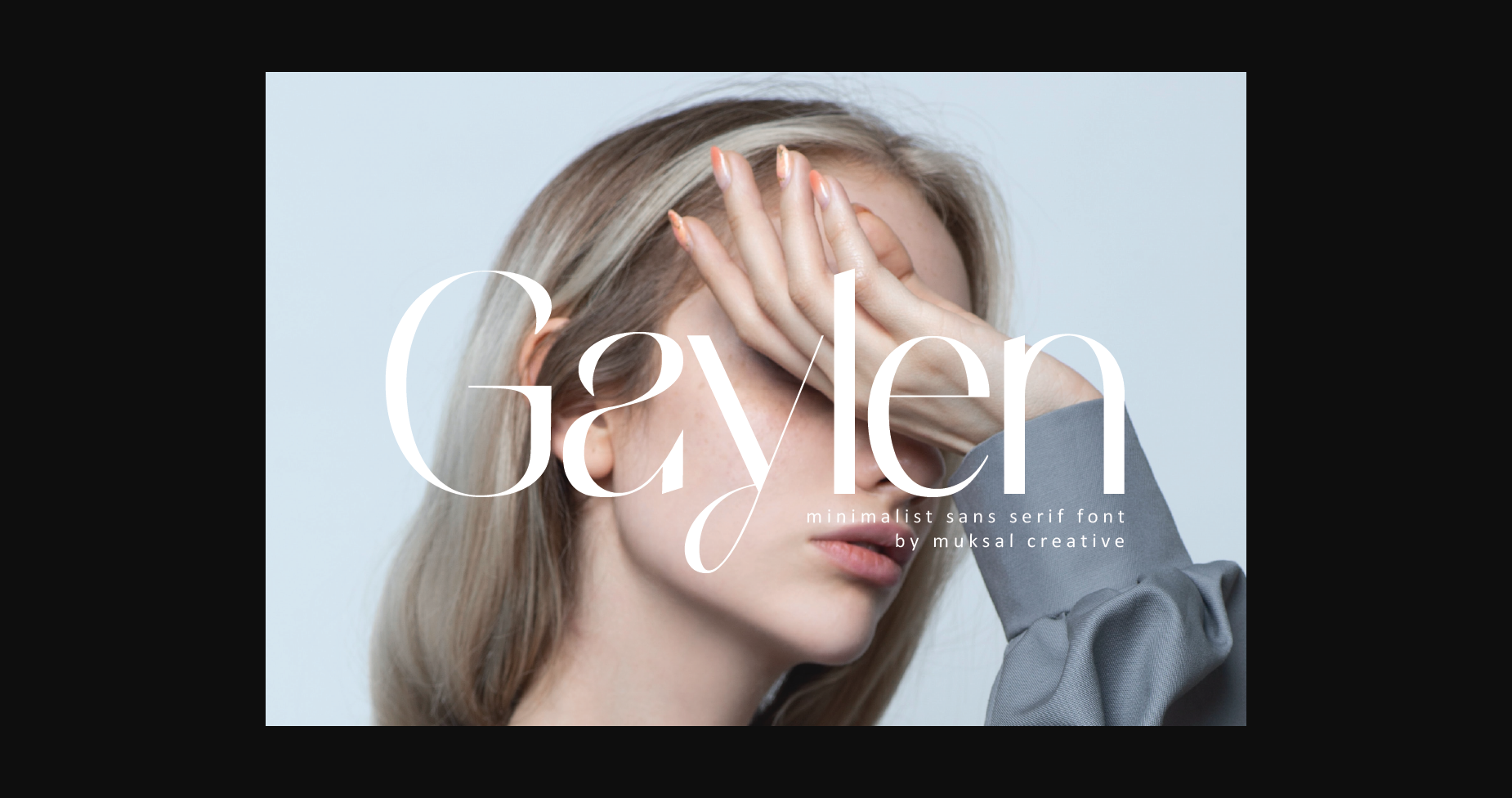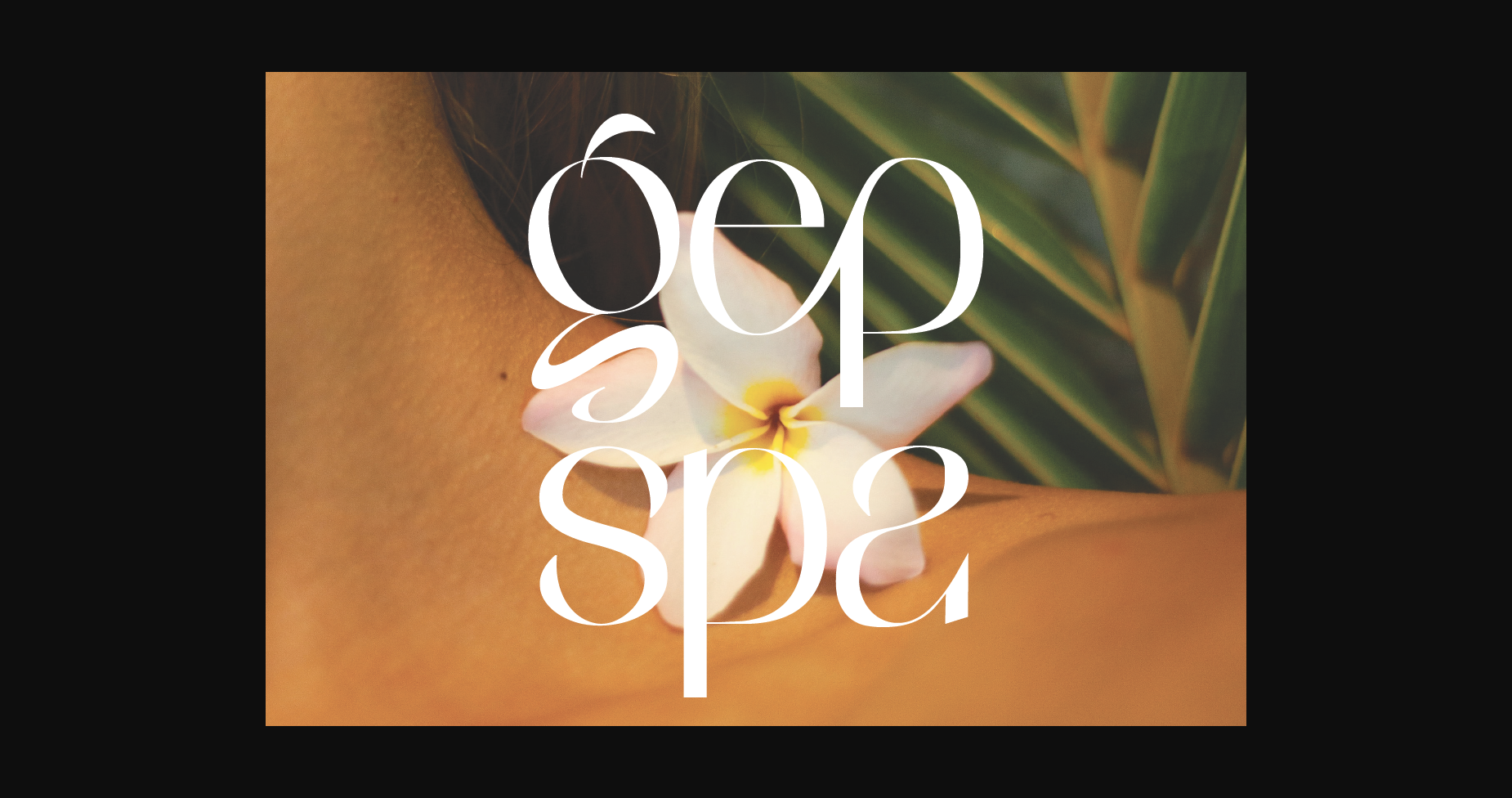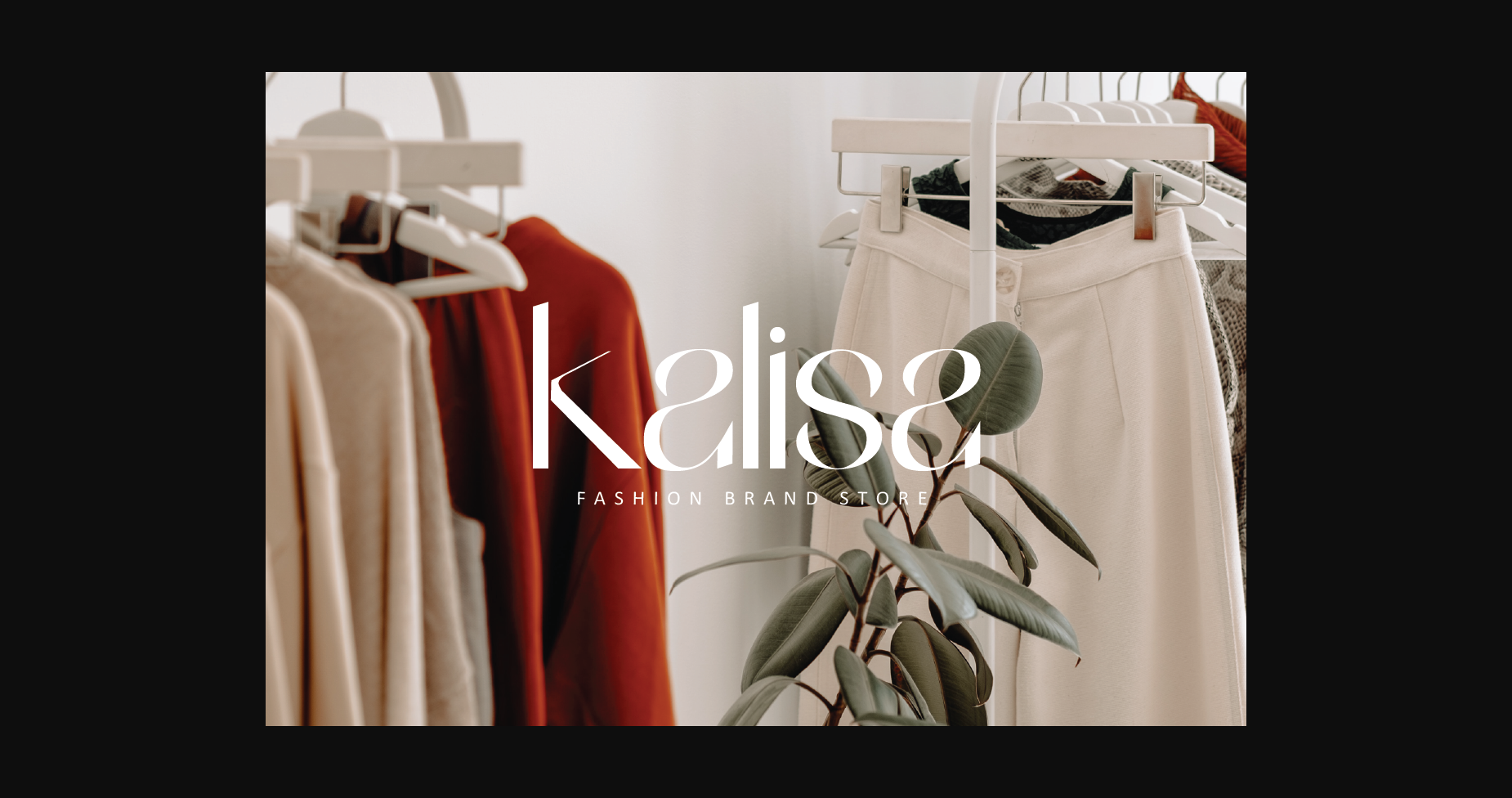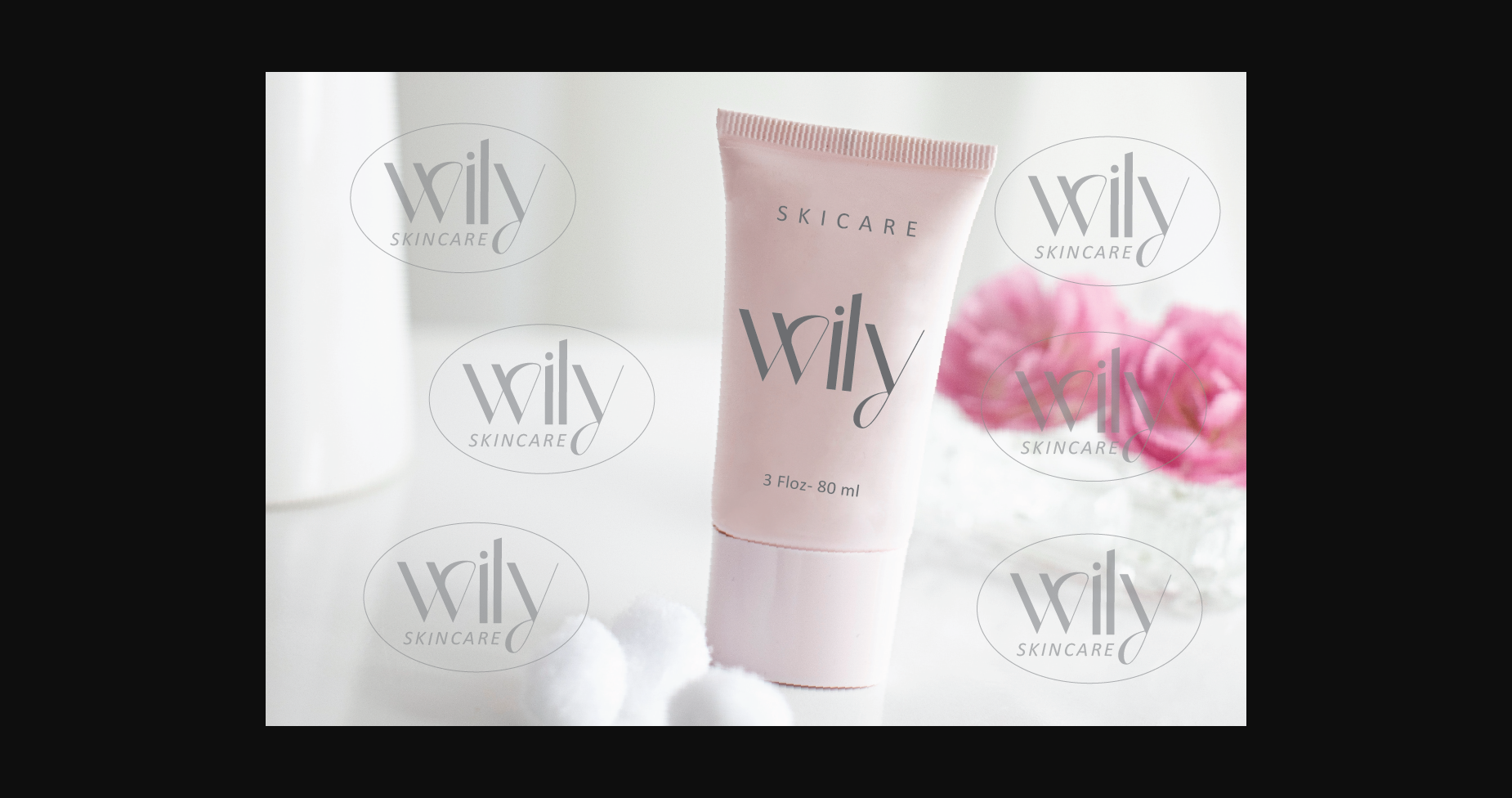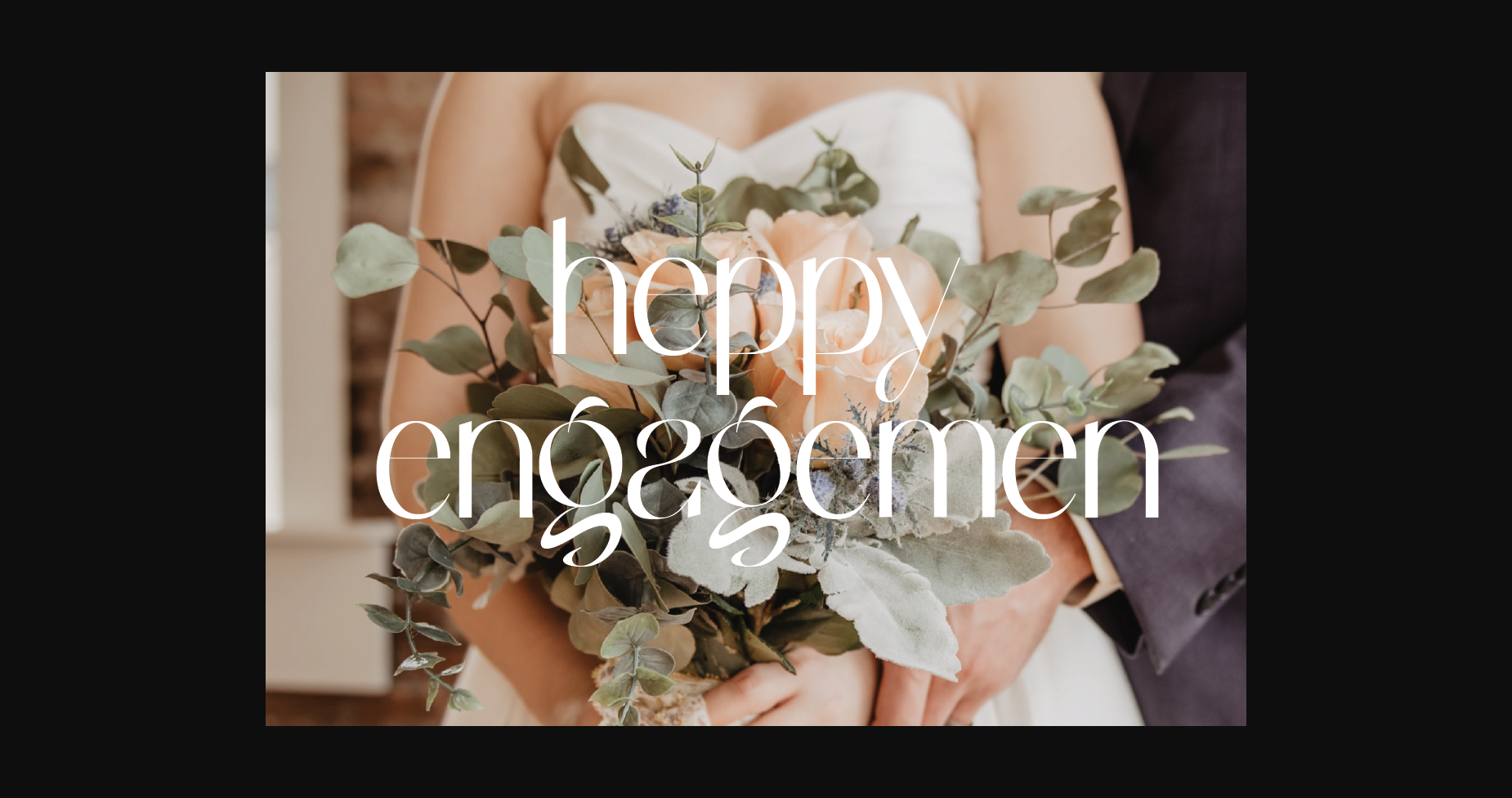
About Gaylen Font
Gaylen is an elegant and modern sans serif font. It is perfect for product packaging, branding project, magazine covers, social media, wedding, or just used to express words above the background.